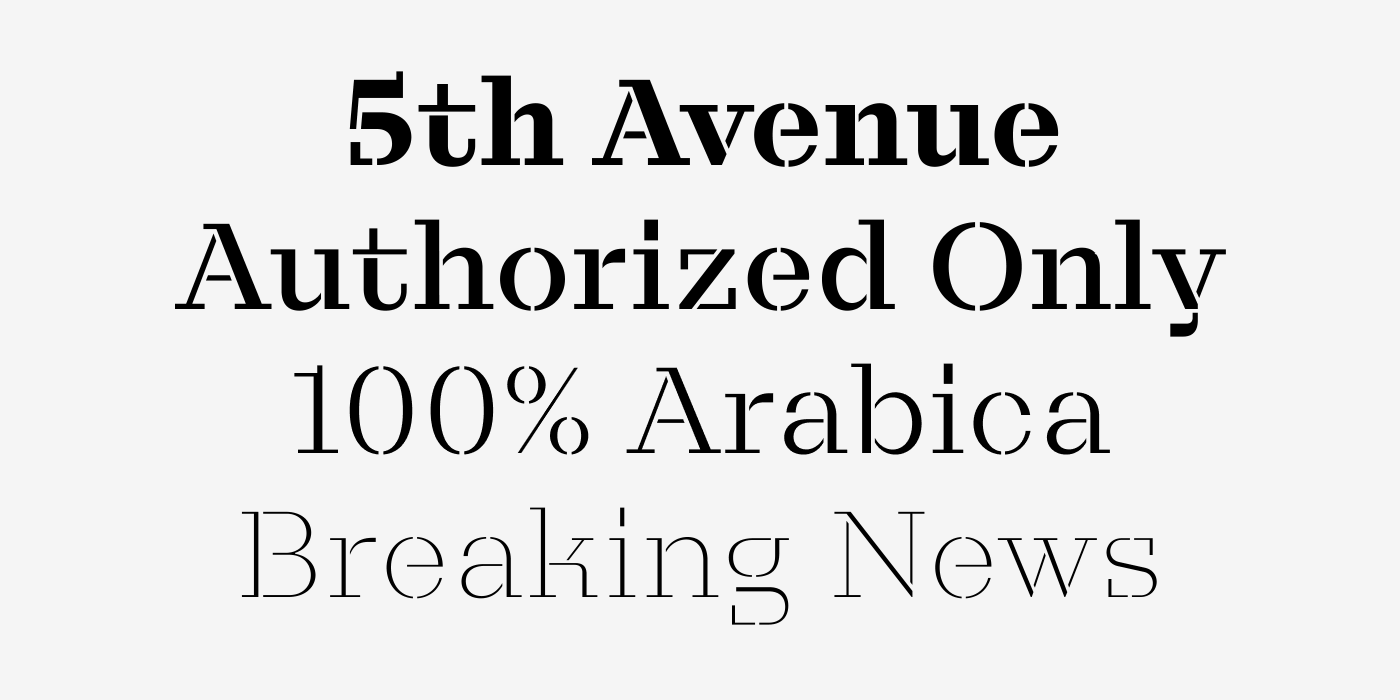
Taler is an eclectic slab serif typeface with rectangular, slightly extended serifs and brutal plasticity. Despite its elegance, Taler is no stranger to the industrial aesthetics, which is why the creation of a stencil typeface came as a natural step in the development of the collection.
Taler Stencil, like the non-stencil serif, comes in seven weights ranging from Thin to Black and is available as a variable font for added versatility.